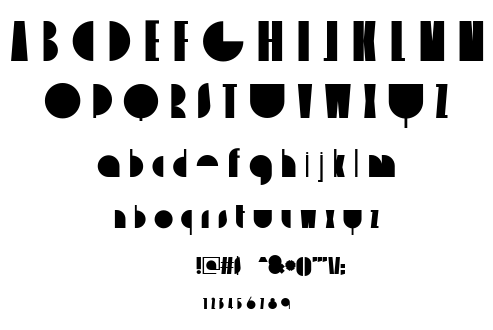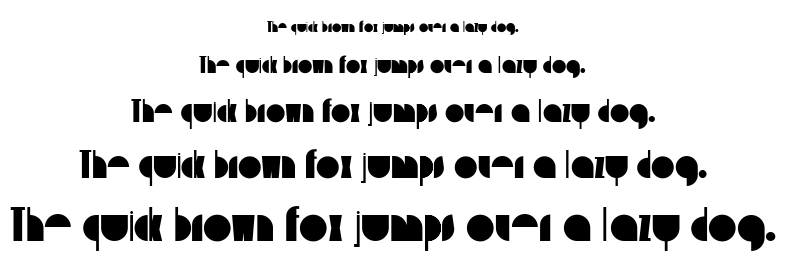
Delizioso is a geometric and sans serif font. It recalls the second world war period type design revised in a modern and playful way. Its unique graphic impact makes it perfect for strong and contemporary headlines.